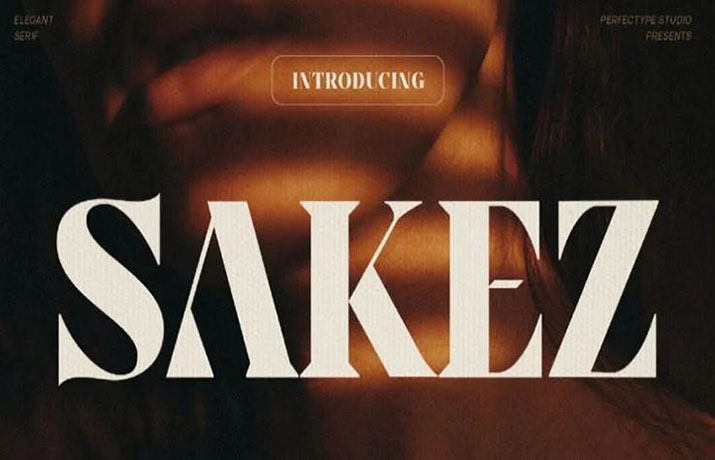
Sakez Font is an elegant serif typeface that features sharp corners and slightly condensed letters. It was designed by Usman Albaehaqi and published by Perfectype.
It is very suitable for your various needs such as branding projects, logos, wedding designs, social media posts, advertisements, product packaging, photography, invitations, stationery, and more.
This font has a unique personality in a letter that has slightly flared terminals. That will give a timeless and refined look. So, we can say that due to its unique features, it will give your design a modern and timeless look.
| Style: | Serif, Bold, Display |
- Books, product designs, special event cards, web content, product designs, branding, packaging, headers, signs, flyers, YouTube thumbnails, magazines, labels, headers, advertisements, invitations, social media posters, banners, titles, signs, labels, cards, editorial design, and many more uses are all possible because of its striking appearance.
This font supports 66 languages.
What is Sakez Font?
Sakez Font is an elegant serif typeface that features sharp corners and slightly condensed letters. It was designed by Usman Albaehaqi and published by Perfectype.